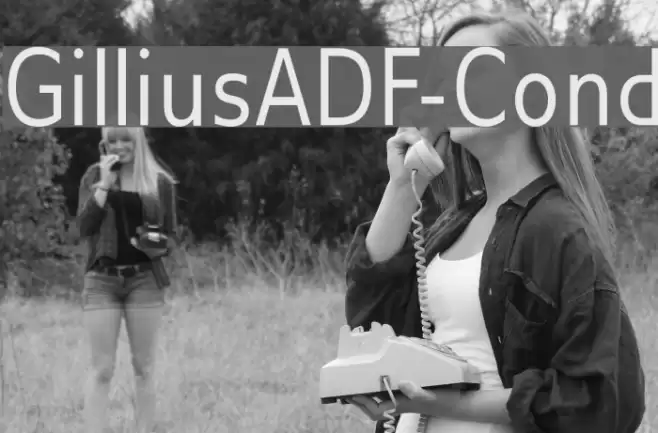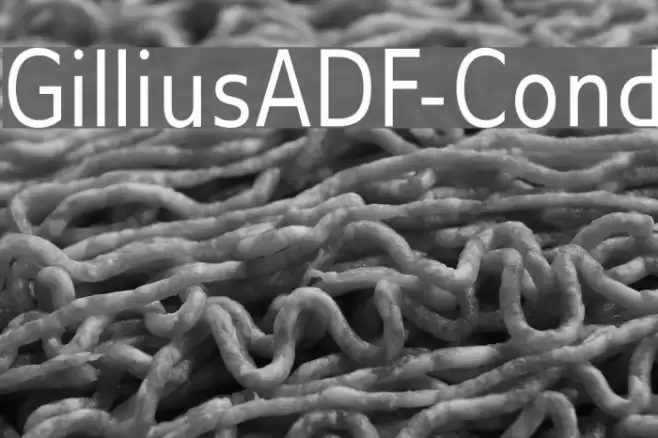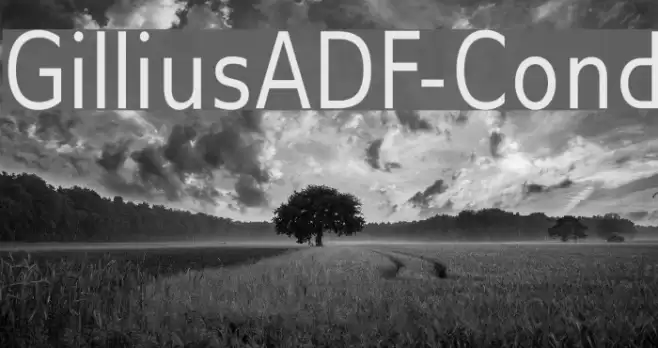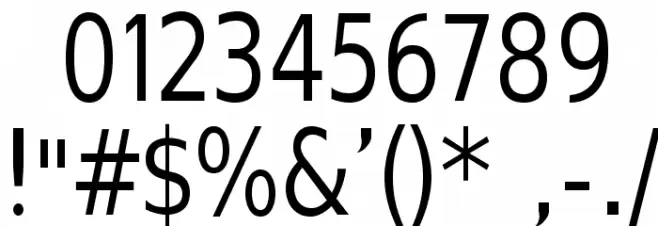
This font exhibits a clean and modern sans-serif style with a condensed width, making it highly suitable for space-efficient text layouts. The characters are well-balanced with a uniform stroke width, providing a consistent and harmonious appearance. The uppercase and lowercase letters are clearly distinguishable, with a slightly taller x-height that enhances readability. The numerals are straightforward and align well with the overall design, while the special characters are crafted to maintain the font's minimalist aesthetic. This font's simplicity and clarity make it versatile for various design applications.
A modern, condensed sans-serif font with clean lines and uniform stroke width from Uncategorized fonts.
- Proposed Projects: Ideal for branding, editorial design, web interfaces, and signage where space is limited.